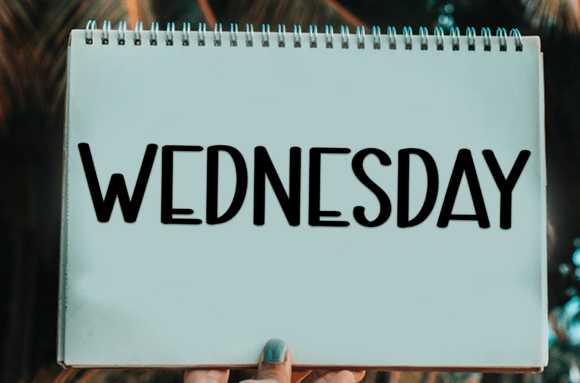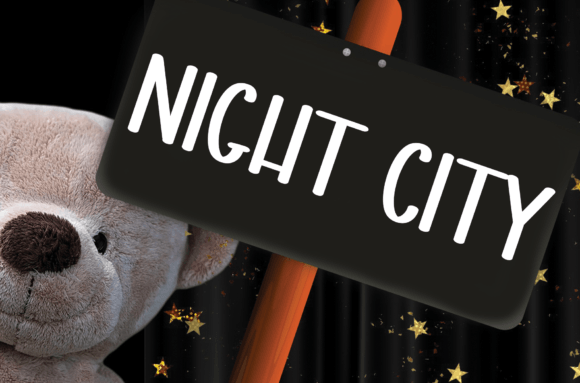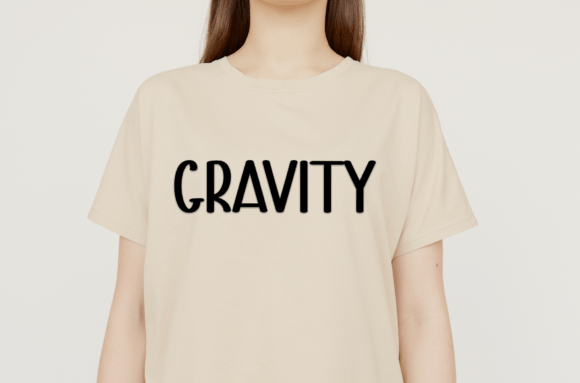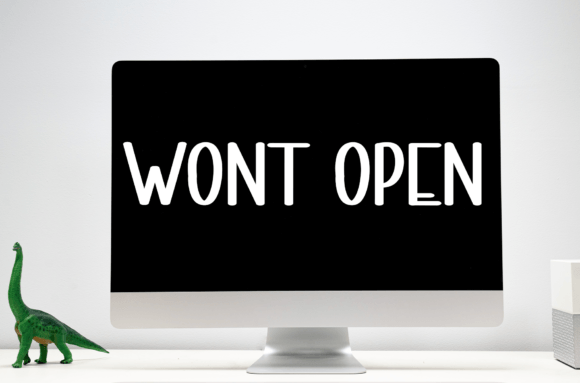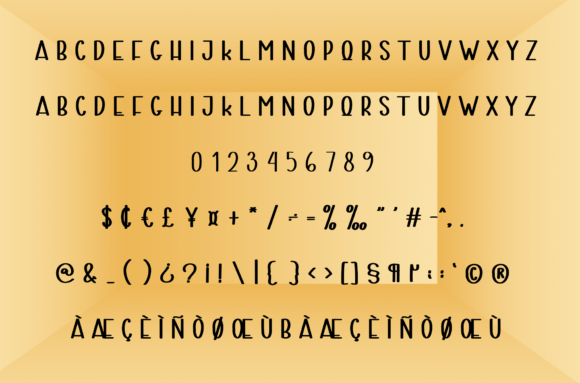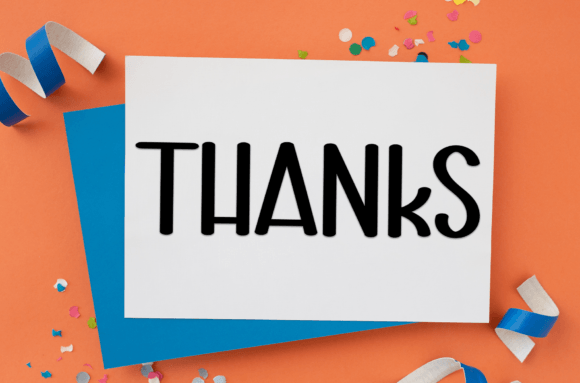
Introducing Farmhouse Font: The Sweet and Friendly Handwritten Font for Your Design Needs
Are you a designer or crafter looking for a font that can add a personal touch to your designs? Look no further than Farmhouse Font, a sweet and friendly handwritten font that’s perfect for creating beautiful wedding invitations, cards, and other designs that require a lovely touch. In this article, we’ll explore the features and benefits of Farmhouse Font, and show you how to use it to take your designs to the next level.
Farmhouse Font is a handwritten font that’s designed to evoke a sense of warmth and friendliness. With its fun and relaxed vibe, this font is ideal for creating designs that require a personal touch. Whether you’re designing wedding invitations, birthday cards, or any other type of stationery, Farmhouse Font is the perfect choice.
- Handwritten style: Farmhouse Font has a beautiful handwritten style that’s perfect for creating personal and unique designs.
- Sweet and friendly: This font has a warm and inviting feel that’s sure to make your designs stand out.
- Fun and relaxed: Farmhouse Font has a playful and carefree vibe that’s perfect for creating designs that require a lighthearted touch.
- Highly versatile: This font can be used for a wide range of design projects, from wedding invitations to social media graphics.
Benefits of Using Farmhouse Font
So why should you choose Farmhouse Font for your design needs? Here are just a few benefits of using this beautiful font:
- Adds a personal touch: Farmhouse Font has a unique and personal feel that’s sure to make your designs stand out.
- Easy to read: This font is highly legible, making it perfect for creating designs that require a lot of text.
- Highly customizable: Farmhouse Font can be easily customized to fit your design needs, from changing the color to adjusting the font size.
Using Farmhouse Font in Your Designs
So how can you use Farmhouse Font in your designs? Here are a few ideas to get you started:
- Wedding invitations: Farmhouse Font is perfect for creating beautiful and unique wedding invitations that set the tone for the big day.
- Cards and stationery: This font is ideal for creating personalized cards and stationery for any occasion.
- Social media graphics: Farmhouse Font can be used to create eye-catching social media graphics that stand out from the crowd.
- Branding and packaging: This font can be used to create custom branding and packaging that reflects your brand’s personality.
Tips and Tricks for Getting the Most Out of Farmhouse Font
Here are a few tips and tricks for getting the most out of Farmhouse Font:
- Experiment with different colors: Farmhouse Font looks great in a range of colors, from soft pastels to bold brights.
- Play with font sizes: This font can be used at a range of font sizes, from large and bold to small and delicate.
- Add embellishments: Farmhouse Font looks great with embellishments, such as flowers, hearts, and other decorative elements.
In conclusion, Farmhouse Font is a beautiful and versatile handwritten font that’s perfect for designers and crafters who want to add a personal touch to their designs. With its sweet and friendly vibe, this font is ideal for creating wedding invitations, cards, and other designs that require a lovely touch. So why not give Farmhouse Font a try and see how it can elevate your designs to the next level?